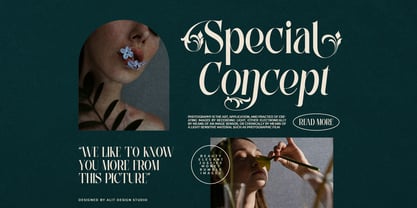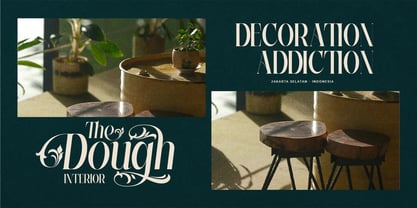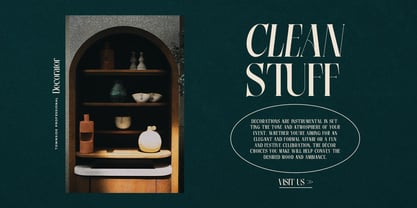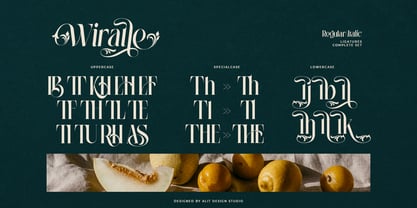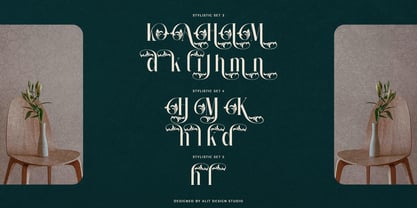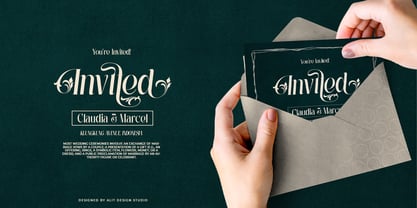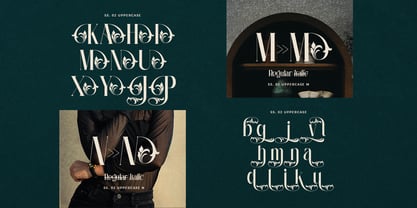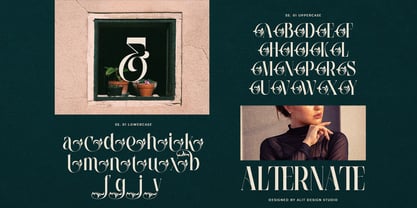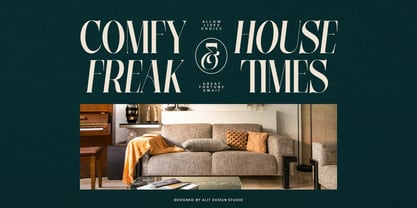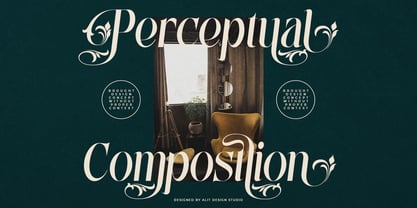
Wiraile
Wiraile Typeface: An Elegant Serif with a Floral Touch
Introducing Wiraile, a stunning and elegant serif typeface that beautifully captures the essence of nature's splendor. Wiraile is designed for projects that demand a touch of class, sophistication, and organic beauty. It masterfully blends the timeless structure of a high-contrast serif with the whimsical charm of nature, featuring exquisite swashes that bloom with delicate floral and leaf elements.
With its sharp lines and graceful curves, Wiraile is both strong and gentle. The true magic lies in its extensive set of alternate characters and ligatures. These special glyphs allow you to transform your text into a piece of art, with letters that flow and intertwine like blossoming vines. Perfect for making a statement, the decorative swashes on both uppercase and lowercase letters add a unique, handcrafted feel to your designs.
Wiraile is available in two essential styles to ensure versatility across your projects:
• Regular: A clean, upright style perfect for impactful headlines and elegant body text.
• Italic: A gracefully slanted version that adds emphasis and a dynamic flow.
Perfect For: Wiraile is exceptionally suited for luxury branding, high-fashion editorials, wedding invitations, cosmetic packaging, logo design, book covers, and any project that needs to communicate elegance and a deep connection to nature.
Features:
• Two Styles: Regular & Italic
• Full set of Uppercase and Lowercase Characters
• Numbers & Punctuation
• Beautiful Floral Swashes & Alternates
• Standard Ligatures
• Multilingual Support
Elevate your creative work with the timeless beauty and natural elegance of the Wiraile Typeface. Let your words blossom.